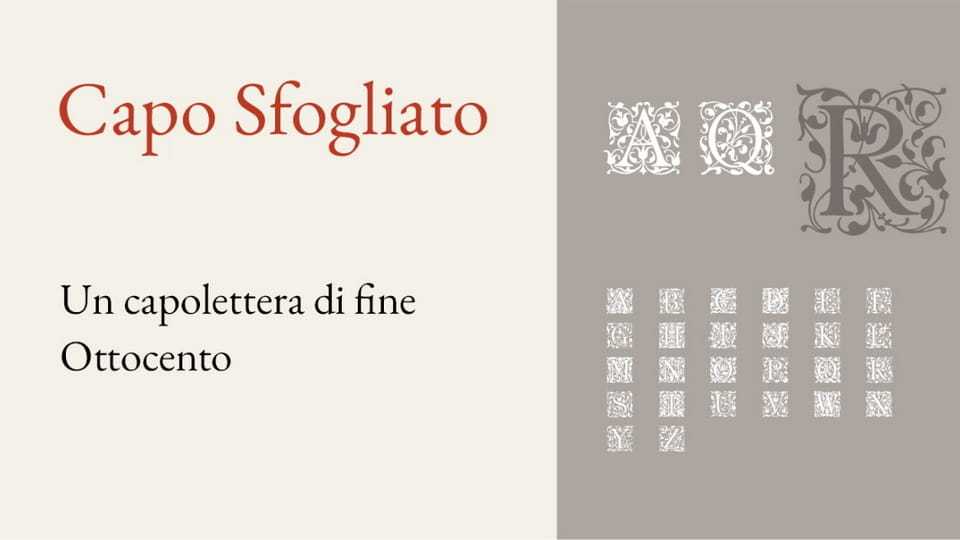
Download Capo Sfogliato font, a decorative initial typeface and a faithful digital revival of a late nineteenth-century masterpiece, originally showcased in the prestigious Petzendorfer’s Schriften Atlas (1889).
Designer: Michele Casanova